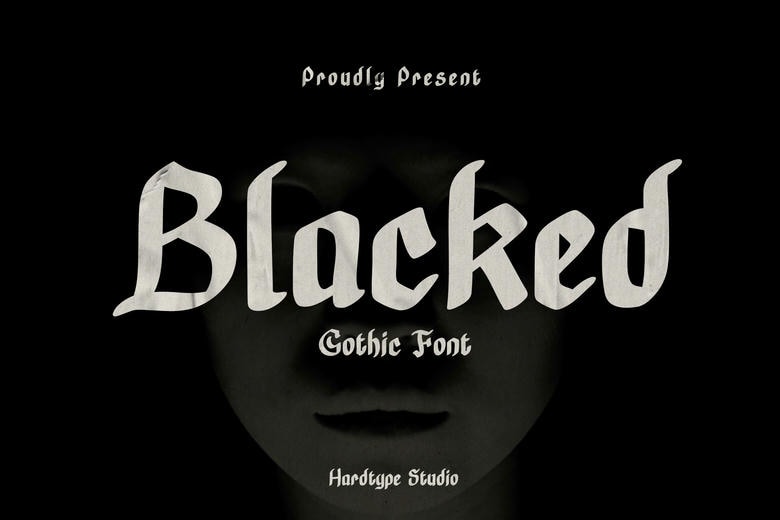
Blacked Font
Blacked is a bold gothic font that draws inspiration from medieval lettering, dark aesthetics, and classic blackletter styles. With its strong strokes and sharp details, it offers a true gothic look while staying easy to read.
This font works well for eye-catching logos, album covers, apparel, posters, branding, tattoos, gaming titles, book covers, and any dark-themed visual identity.
Blacked Blackletter Font